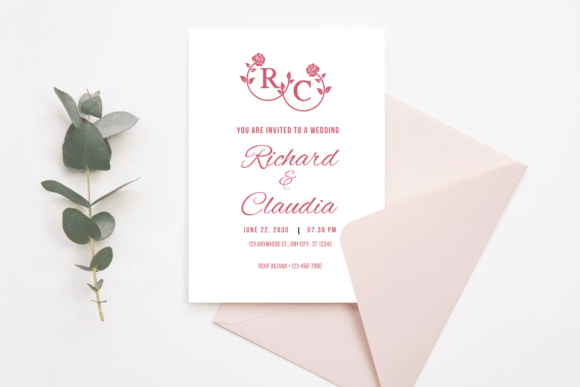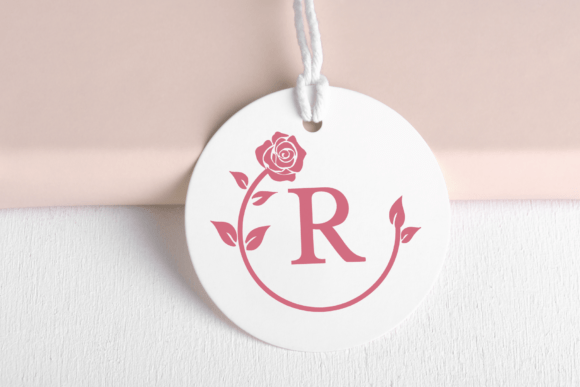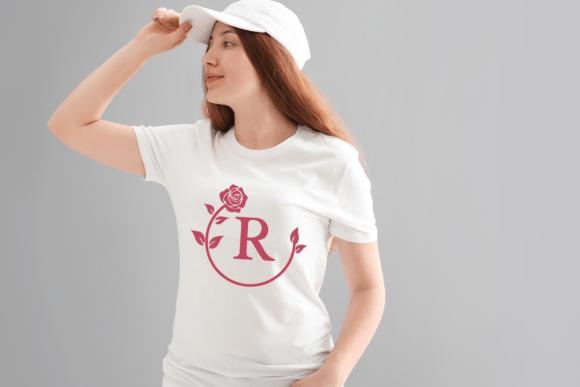
Introduction to Rose Floral Monogram Font
Rose Floral Monogram is an elegant featuring a circular frame decorated with delicate rose and floral elements.
This timeless monogram font is perfect for wedding designs, logos, branding, invitations, signage, Cricut and Silhouette projects, DIY crafts, and printable designs Ideal for creating romantic, classy, and floral-inspired artwork for both digital and print use.
Key Features of Rose Floral Monogram Font
Why Choose Rose Floral Monogram Font?
Rose Floral Monogram Font offers exceptional quality and versatility, making it a valuable addition to your design toolkit. Whether you’re creating for personal projects or commercial use, Rose Floral Monogram Font delivers professional results.